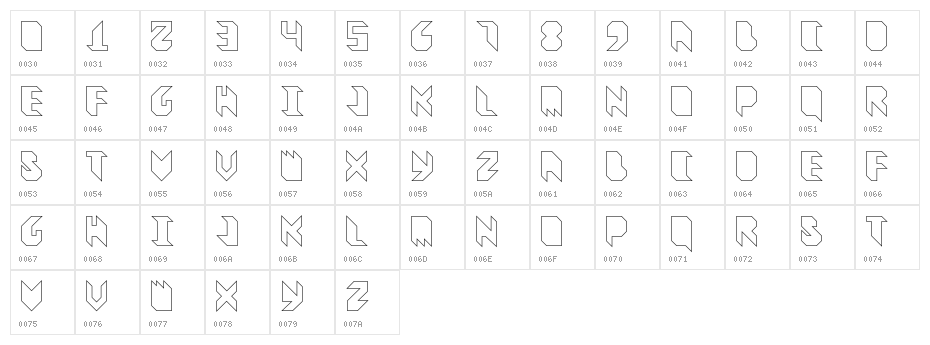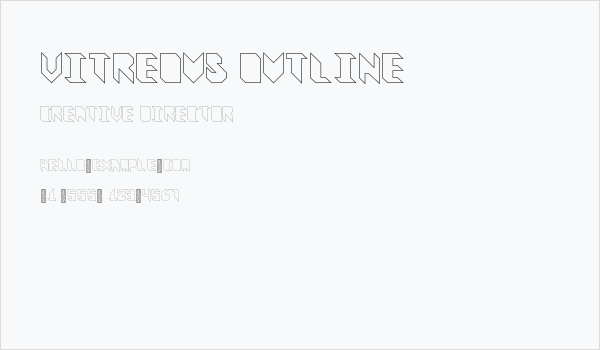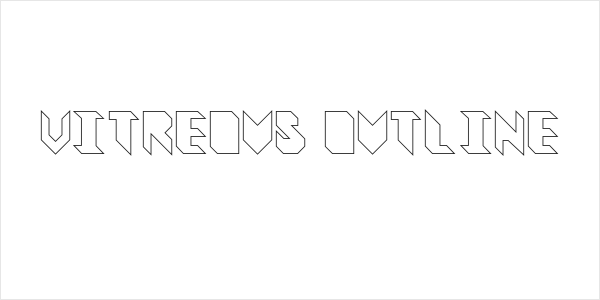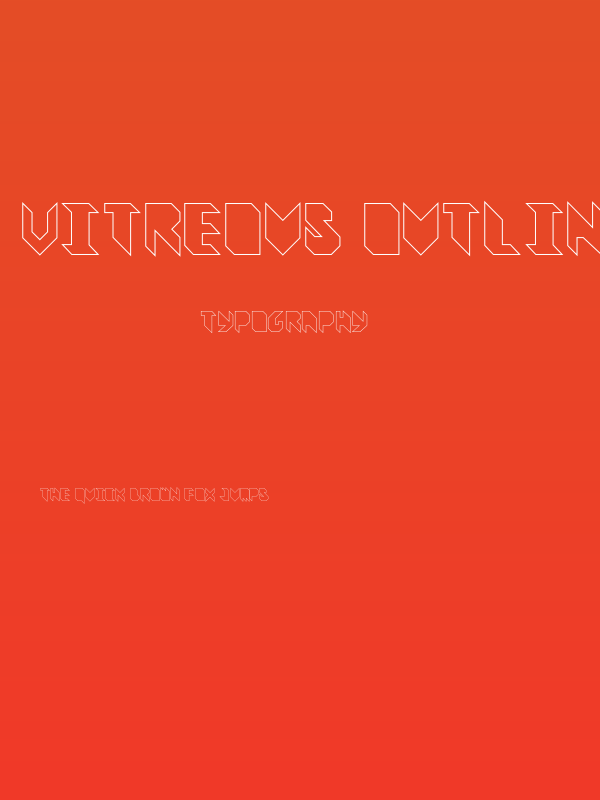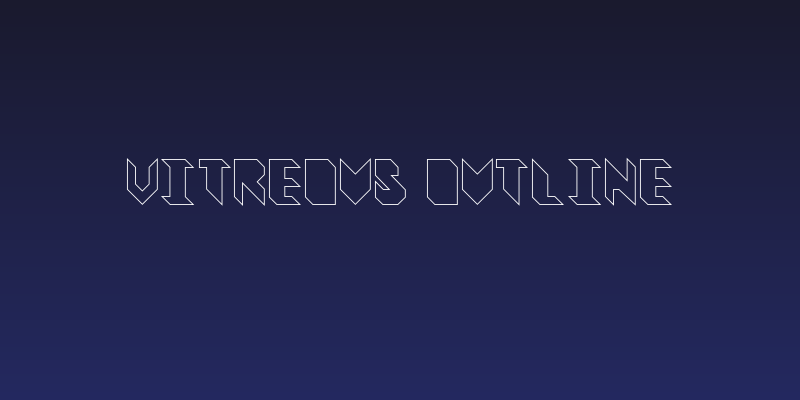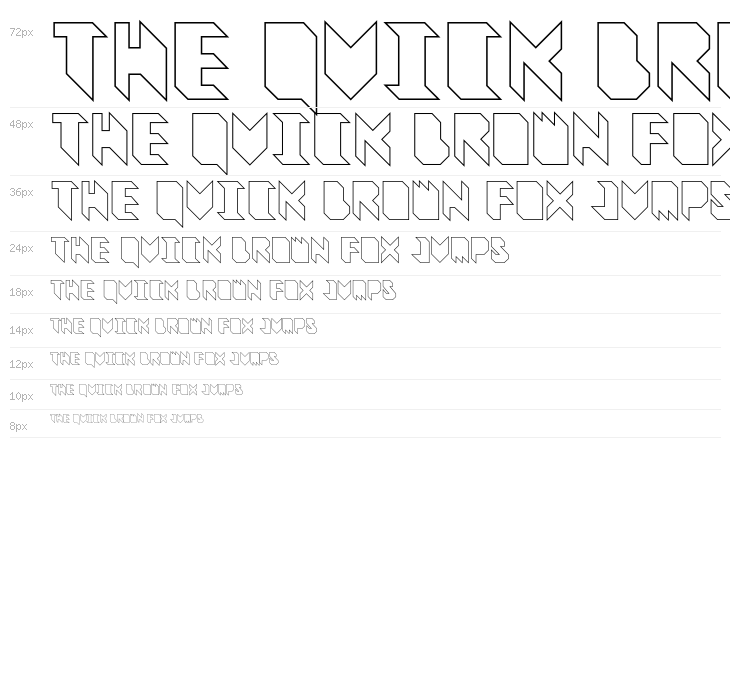
Vitreous Outline Font
Vitreous Outline Description
This font features a unique outline style with a geometric and angular design. Each character is crafted with sharp edges and distinct angles, creating a futuristic and edgy appearance. The uppercase and lowercase letters maintain a consistent style, emphasizing the angular theme. Numbers follow the same design principles, ensuring uniformity across all characters. The absence of filled spaces within the characters gives it a hollow, outline effect, making it stand out in bold displays. This font is perfect for projects that require a modern and striking visual impact.
| Proposed Projects | Ideal for futuristic designs, tech branding, video game titles, and sci-fi themed projects. |